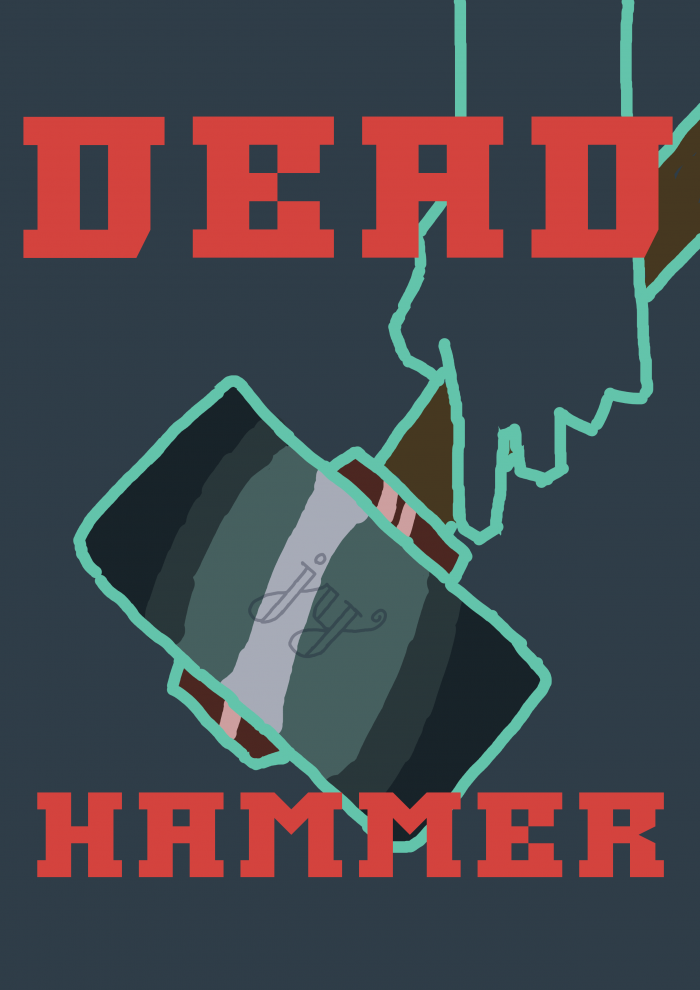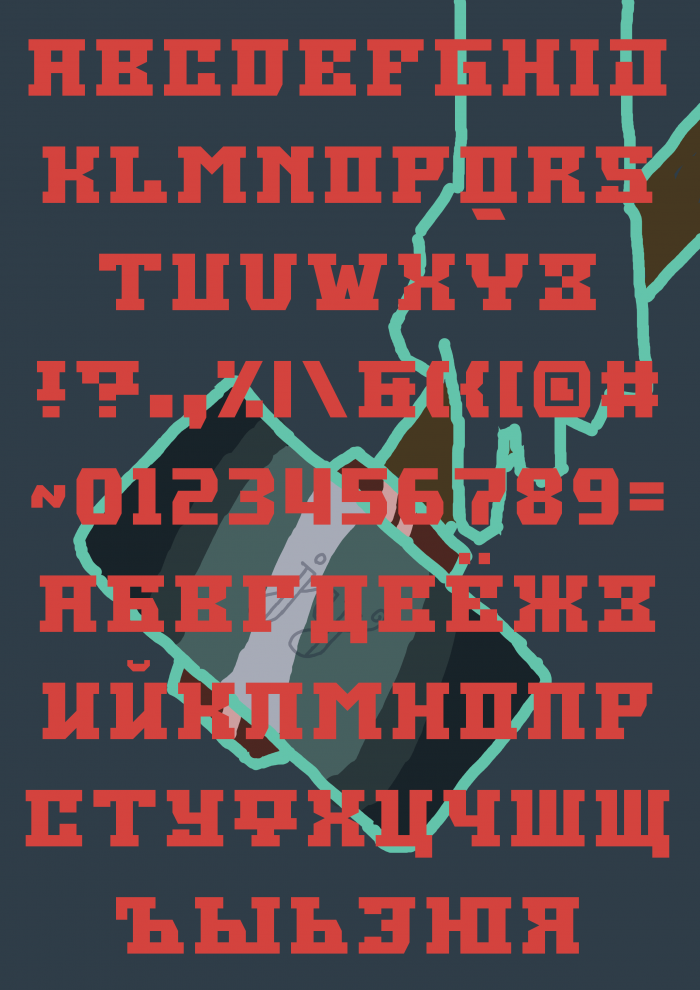
Nice one Jing. But why the huge vertical space?
As I remember, letter A with breve and hook above, from Vietnamese
Amazing! “Д” and “Л” are a bit boxy and the latter could be confused for: “П”. But I love: “Q”.
@TH3-C0N-MAN I did try other designs for de and el but that's what I finally settled with. And I think they're still legible. I like the Q too, it was a eureka moment
Wrong Ф and И. Э is out of conception. I agree with TH3_C0N-MAN about Л. Also I think classic Z would be better.
I don't see what's wrong with и
This is a pretty nice font, considering the small grid…
Even at 2x pixel view, this looks nice…
I like the new alternates. I also don’t see anything wrong with “И”.
Hi, Arabic speaker here! I'm not really sure about ج خ ح. These characters don't have the "hook" at the top like the mid or starting cases do, kind of confusing. Otherwise, great font!
@Acies I removed the "hook" from isolated
chars to look at: JVW, both cases